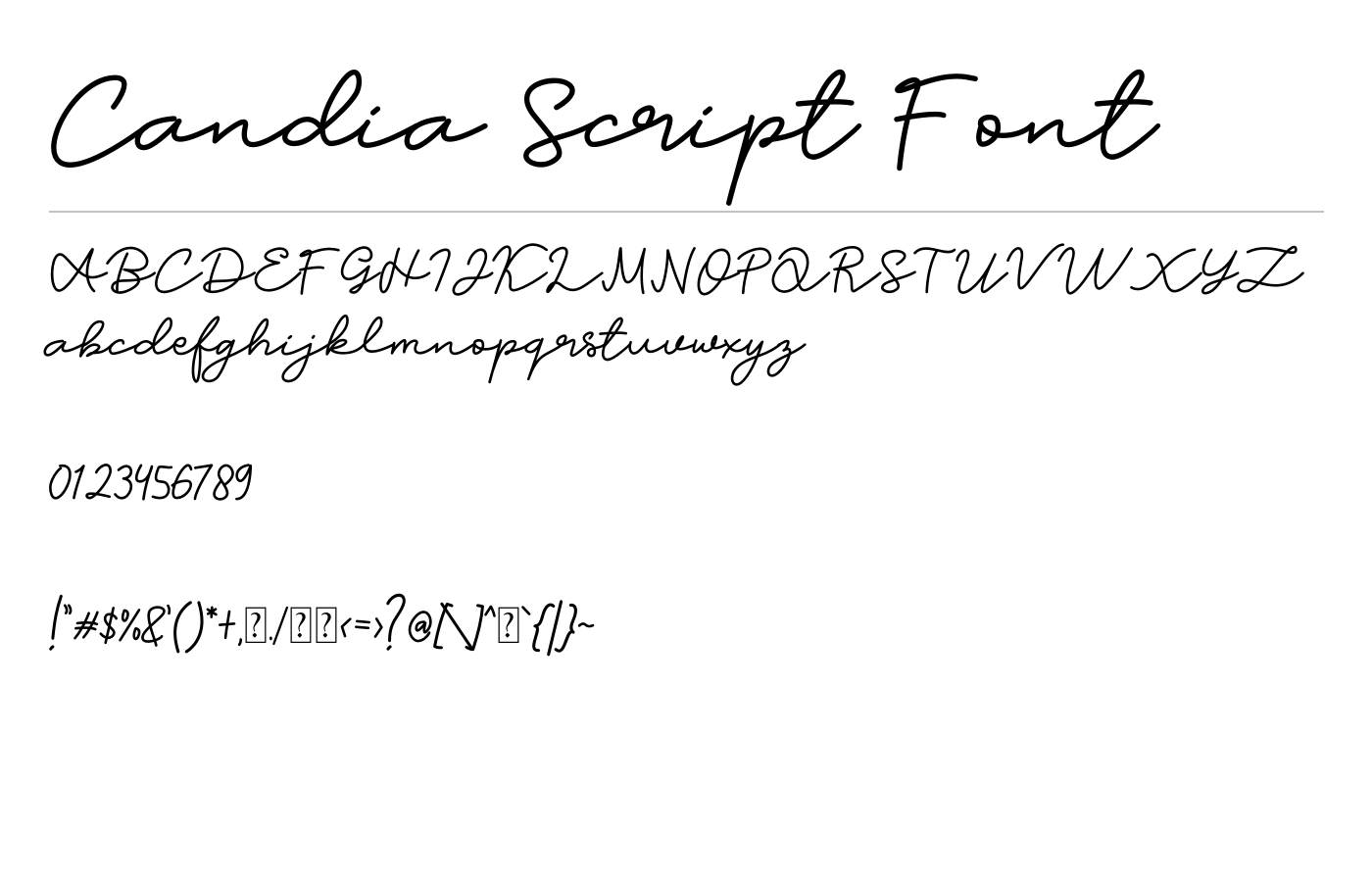
Candia Script Font is a delicate and elegant handwritten script with a light weight and graceful strokes that mimic natural penmanship. Its slender, flowing letterforms convey a personal and refined feel, making it ideal for invitations, branding, and creative projects that seek a touch of sophistication and warmth. This font works beautifully in designs that require a stylish, approachable, and modern handwritten look.
Candia Script Font
About Candia Script Font
| Font family | Candia Script Font |
| Designer | Ahmad Muslimin |